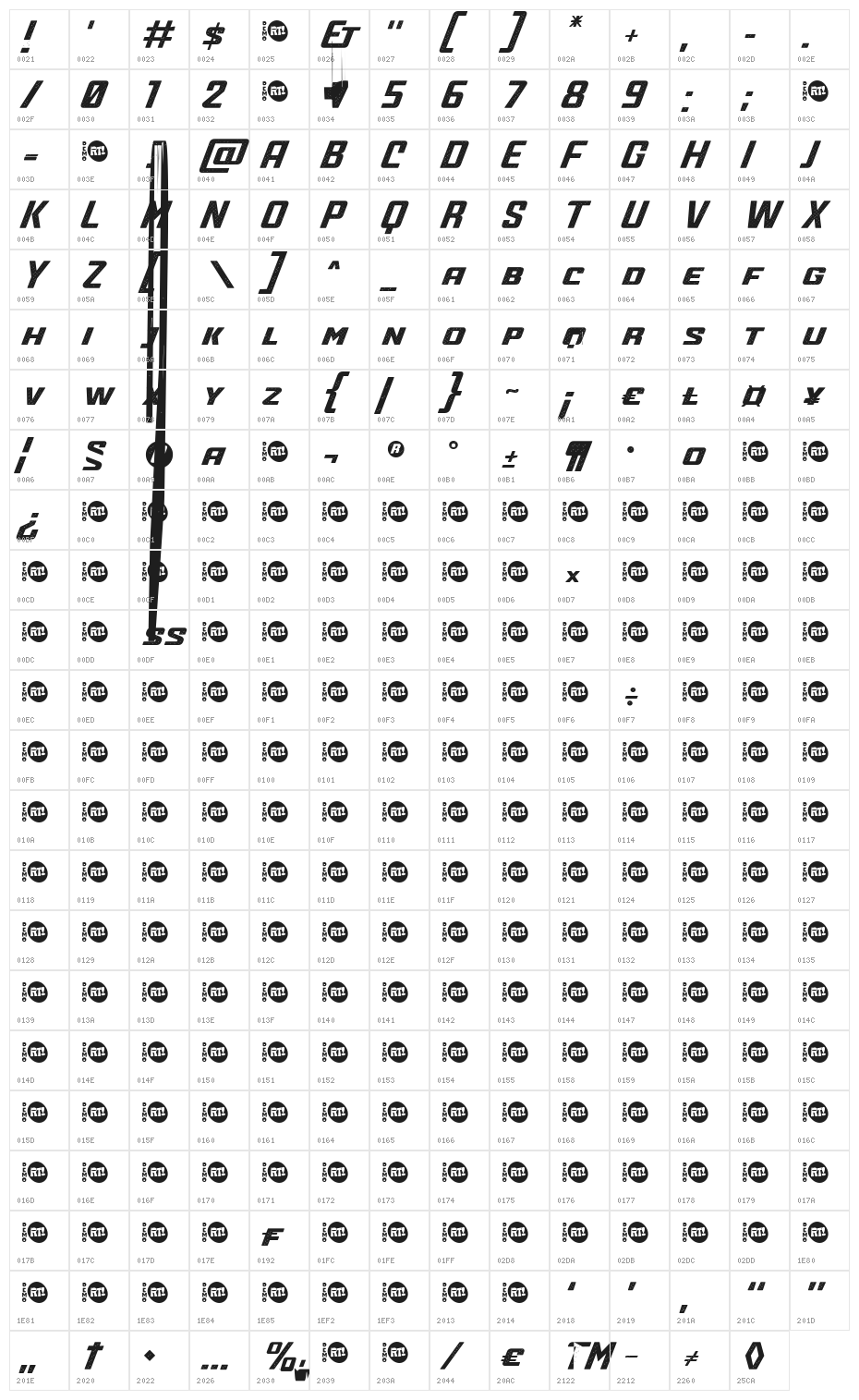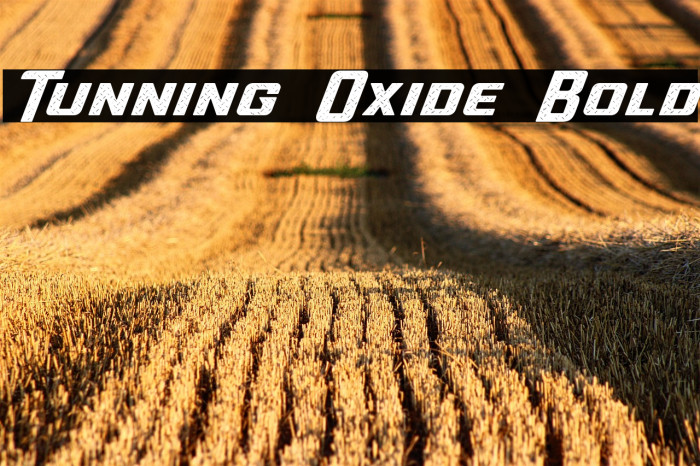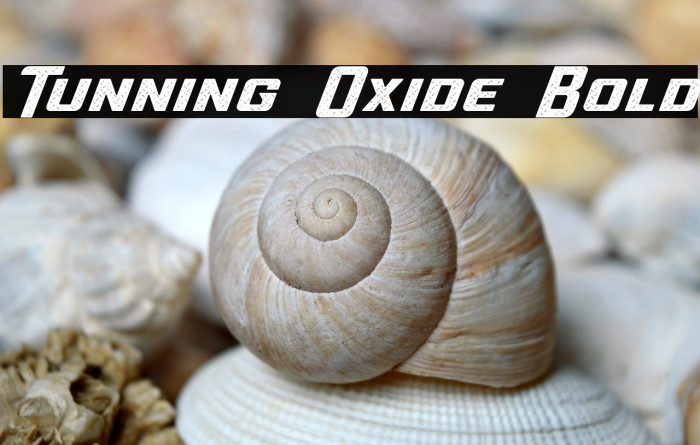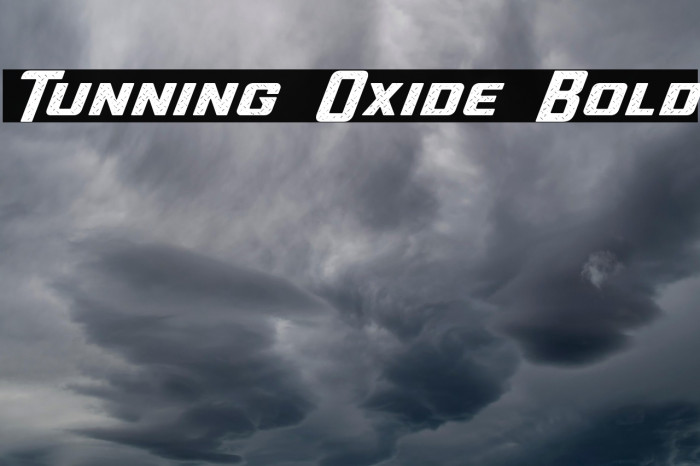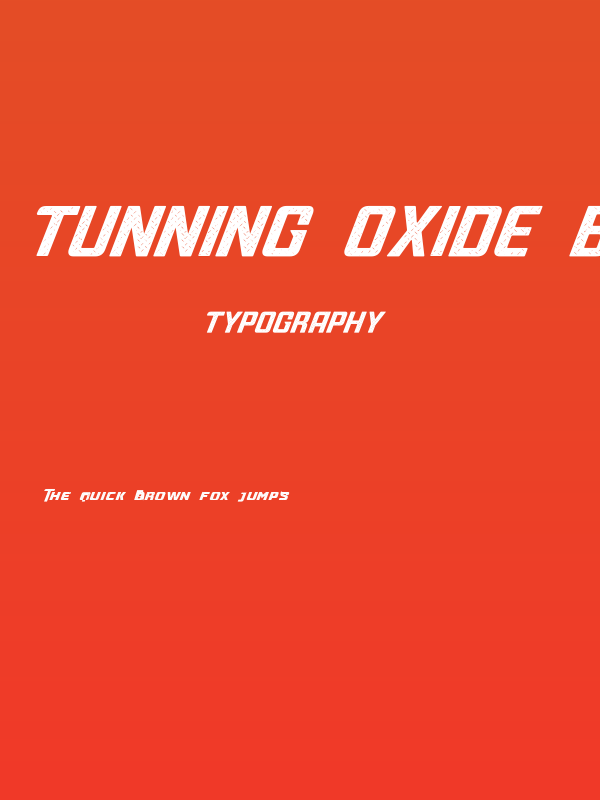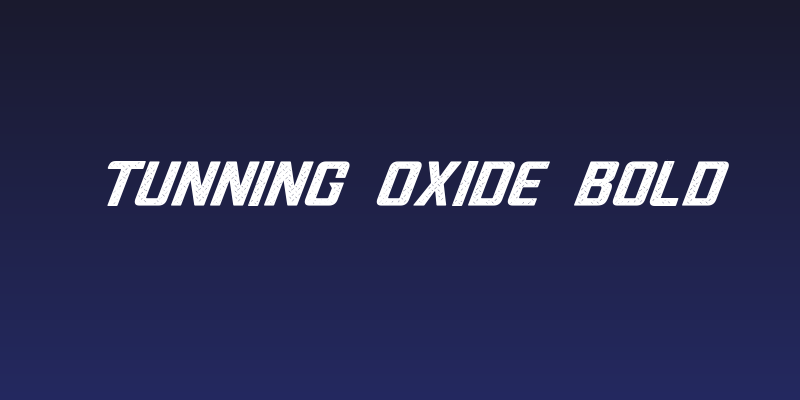
Tunning Oxide Bold Font
Tunning Oxide Bold Description
This font features a bold and dynamic style with a distressed texture, giving it a rugged and industrial appearance. The characters are slightly slanted, adding a sense of motion and energy. The uppercase letters are prominent and impactful, making them suitable for attention-grabbing headlines. The numbers and special characters maintain the same bold and textured style, ensuring consistency across all elements. The font's unique texture makes it ideal for projects that require a gritty, urban feel.
| Overall Style | Modern, Industrial |
| Proposed Projects | Ideal for posters, logos, and branding materials that require a strong, edgy look. |